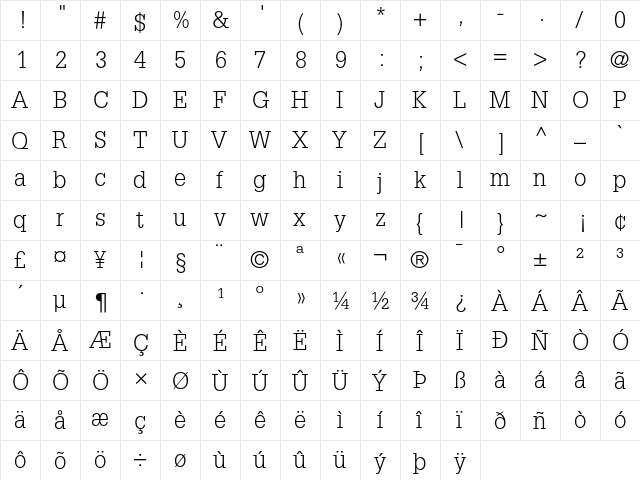
Glypha 45 Light
Design Context for Glypha Typeface
Glypha is a composed and adaptable typeface that performs quietly and consistently across a wide range of design contexts. Its slender proportions lend an understated elegance to any composition.